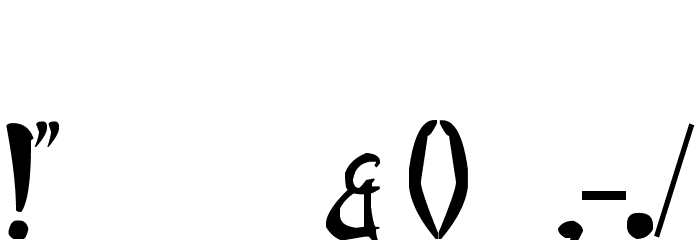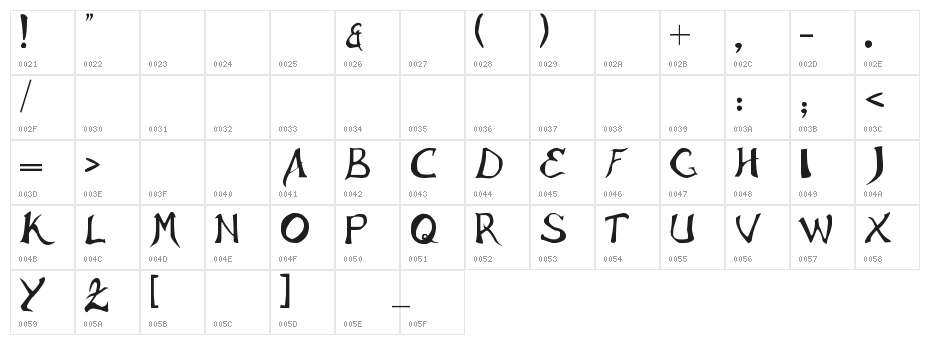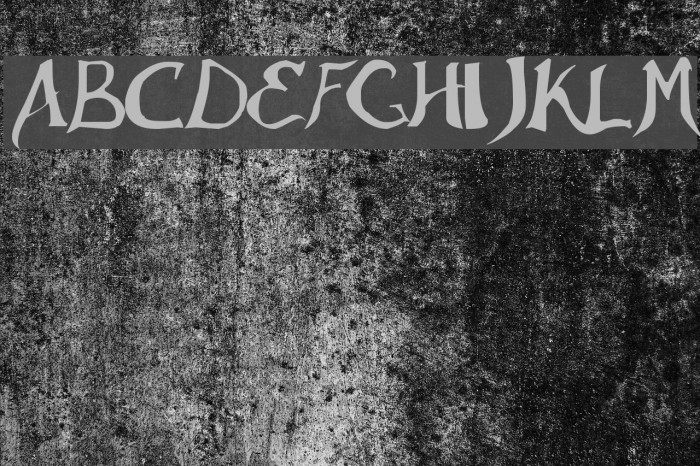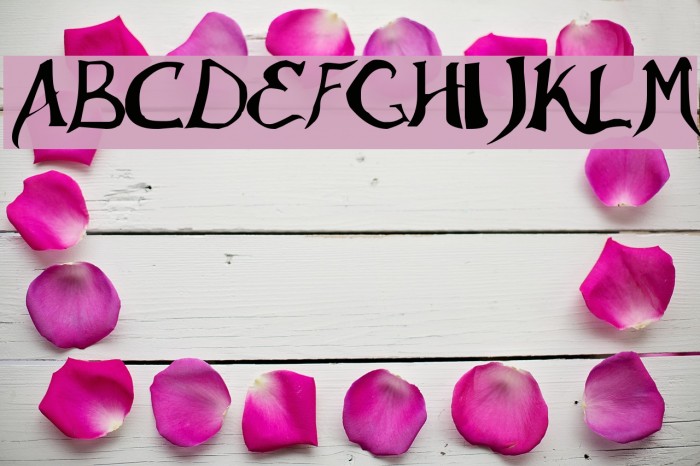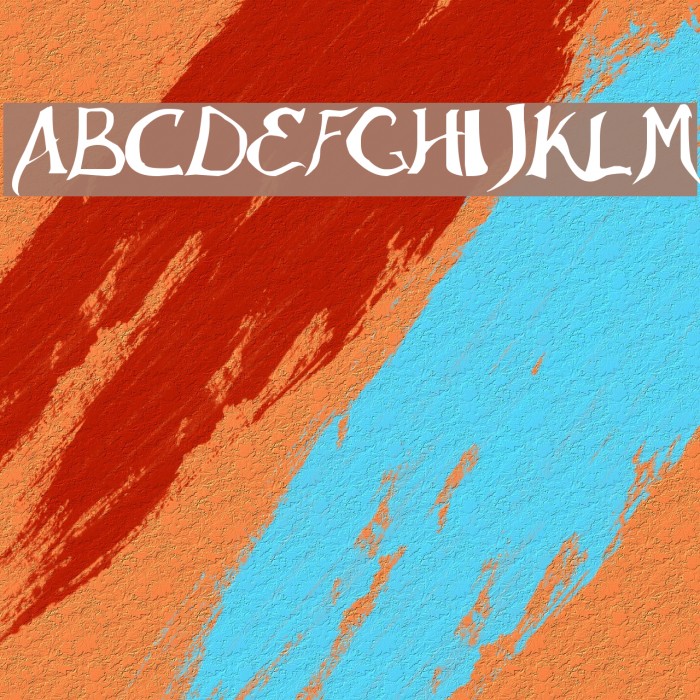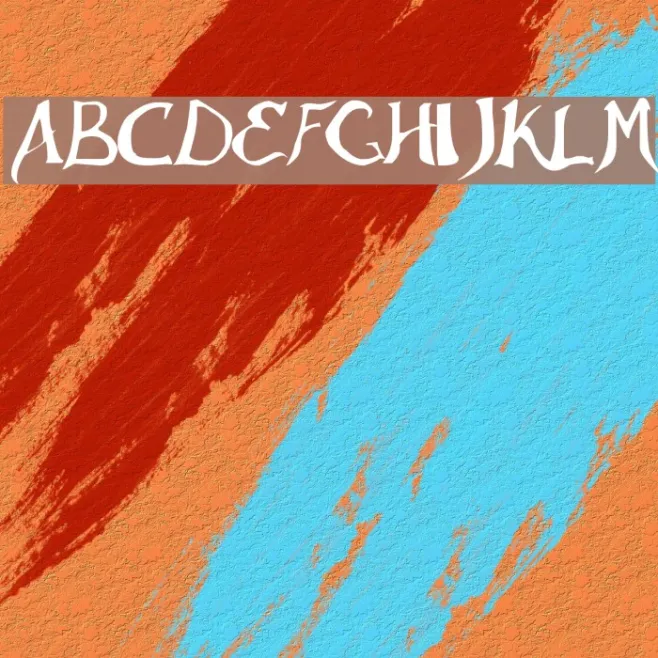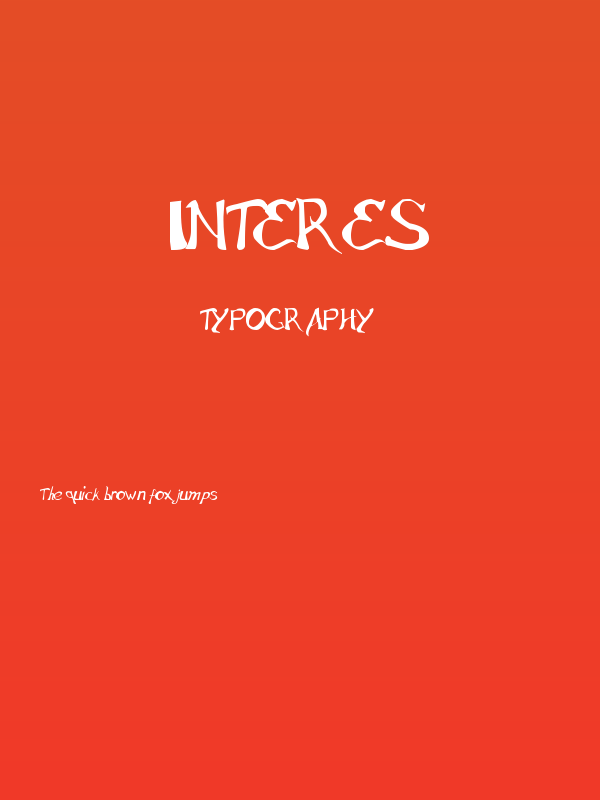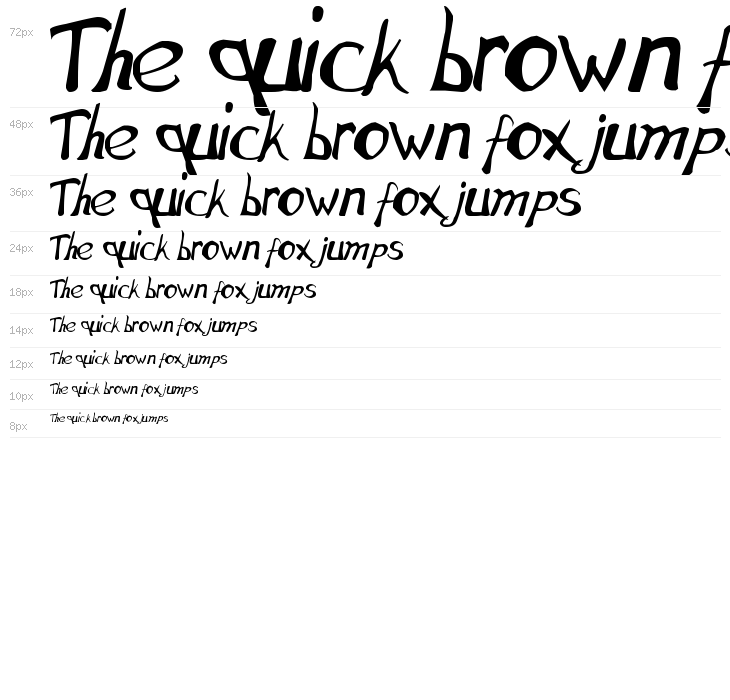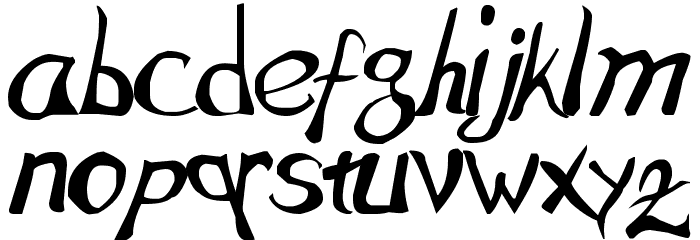
Interes Font
Interes Description
This font exhibits a dynamic and artistic flair, characterized by its sharp, angular strokes and fluid curves. The uppercase letters have a strong presence, with exaggerated serifs and a calligraphic influence that adds a sense of movement and elegance. The lowercase letters maintain this fluidity, with some characters featuring unique, sweeping tails and loops. The numbers and special characters are equally stylized, ensuring consistency throughout the typeface. This font's distinct style makes it suitable for creative and expressive design projects.